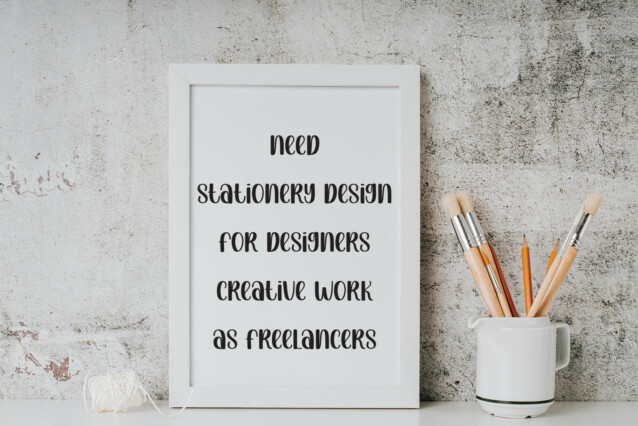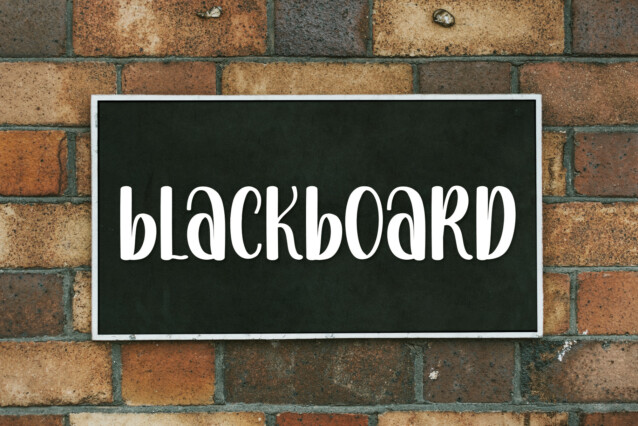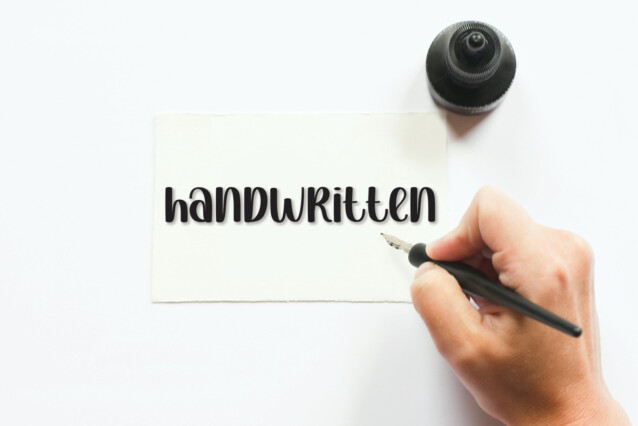
Sunny Display Font
Sunny Display Font is a fun and bright handwritten font. Incredibly versatile, this font is suitable for a wide spectrum of applications.